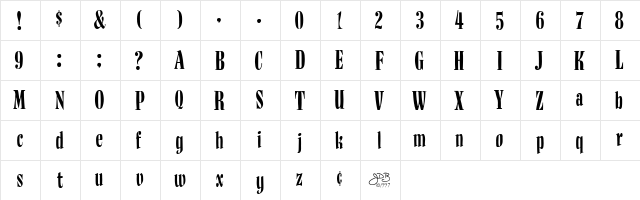
BudNull Medium
Design Context for BudNull Typeface
BudNull takes a measured approach to typography — its balanced proportions and neutral character make it a reliable workhorse for both digital and print work.
Pro Tip: Use BudNull in both headline and body roles to test its range before committing to a single application.